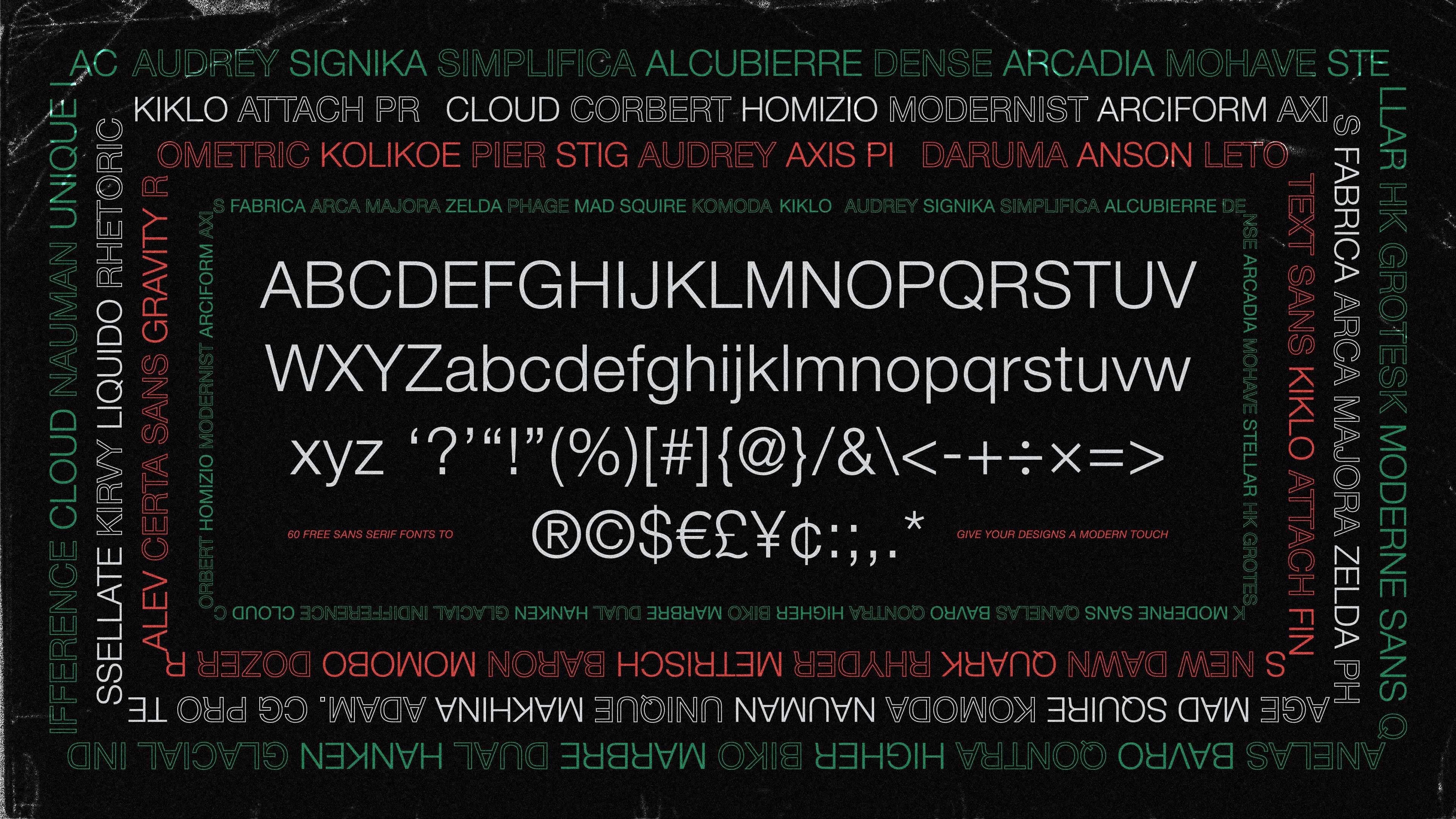
It is universally acknowledged that most contemporary designs require a versatile sans serif font.
Sans serif fonts, as you might already know, are the fonts with no projecting lines at the ends. While serif fonts are known to be more traditional, sans serif fonts bring that much needed modernistic touch to the design.
Inspired by Audrey Hepburn, this elegant font by Cristina Pagnotta combines straight and curvy lines in the most harmonious way possible. It has two variations – regular and oblique.
Created by Anna Giedryś, Signika is perfect for designs where you want the text to take the center stage. With its low x-height, it’s super easy to read even from a long distance.
Simplifica by Kaiwa. Image via Behance.
As its name suggest, Simplifica by Kaiwa is a clean, neat and simple font. The uniform line width of this condensed sans serif font lends it excellent legibility.
Alcubierre by Matt Ellis. Image via Behance.
Alcubierre is a minimal and geometric sans serif font. Created by Matt Ellis, this font will complement any design it’s part of.
Dense by Charles Daoud.
Now Dense by Charles Daoud is a very versatile font. Available in thin, regular, and bold, this font redefines subtleness.
Arcadia by Manh Nguyen. Image via Behance.
Arcadia is a hairline sans serif font with a feminine vibe. Designed by Manh Nguyen, this font has light strokes and it’s perfect for magazine titles as well as logos.
Mohave by Gumpita Rahayu
Designed by Gumpita Rahayu, this is an uppercase font with dynamic glyphs and a smooth height consistency.
Stellar by Mathieu Desjardins
Stellar by Mathieu Desjardins is a condensed sans serif font with tall uppercase letters which makes it perfect for headings.
HK Grotesk by Alfredo Marco Pradil
Inspired by classic grotesque, this font by Alfredo Marco Pradil, is clean, crisp and extremely legible even for the smaller texts.
Moderne Sans by Marius Kempken
Moderne Sans is highly influenced by 1920’s typeface, which is why it has that turn of the century look to it. Despite that, this font by Marius Kempken, still manages to look extremely modern.
Quanelas font by Rodamir Tinkov.
Designed by Rodamir Tinkov, Qanelas has a geometric touch to it. Its available in several weights and is perfect for both headlines as well as normal paragraphs.
Bavro font by Marcelo Reis Melo
One look at Bavro and you’ll know it’s the right choice for posters and headlines. This font has neat lines which give it the much needed modern touch. It was designed by Marcelo Reis Melo.
Qontra by Tomaz Hrastar.
Another condensed sans serif font, Qontra by Tomaz Hrastar would work amazingly for any typographic application.
Higher by Marisa Passos.
Designed by Marisa Passos, Higher has tall letters and a striking futuristic look. This is hands down one of my favorite fonts on the list.
Biko by Marco Ugolini.
Biko has been designed by Marco Ugolini. Its clean and bold lines make it perfect for logos and copy text.
Marbre by Youssef Habchi.
Marbe — designed by Youssef Habchi —might have an Art Deco feel to it, but it can still add a modern touch to your design with its sleek, neat lines.
Dual by Charles Daoud.
Dual — with its full width, straight lines and 90 degree angles — is a spacious, legible font. Designed by Charles Daoud, it has 10 sets and 251 alternate glyphs.
Hanken by Alfredo Marco Pradil.
Hanken by Alfredo Marco Pradil is a simple, rounded font. With its level of clarity, it looks equally good as either a headline or body text.
Stig by Alex Hedin.
Inspired by automotive designs, Stig a neo-humanist font. It was designed by Alex Hedin.